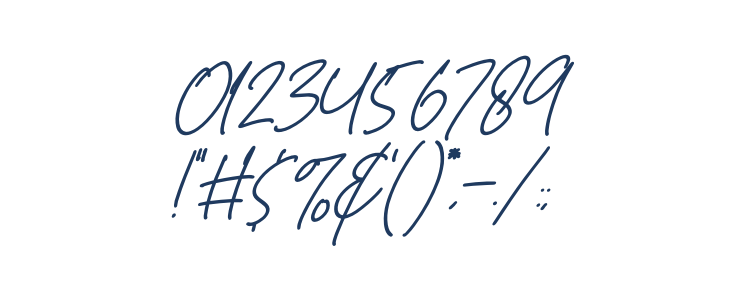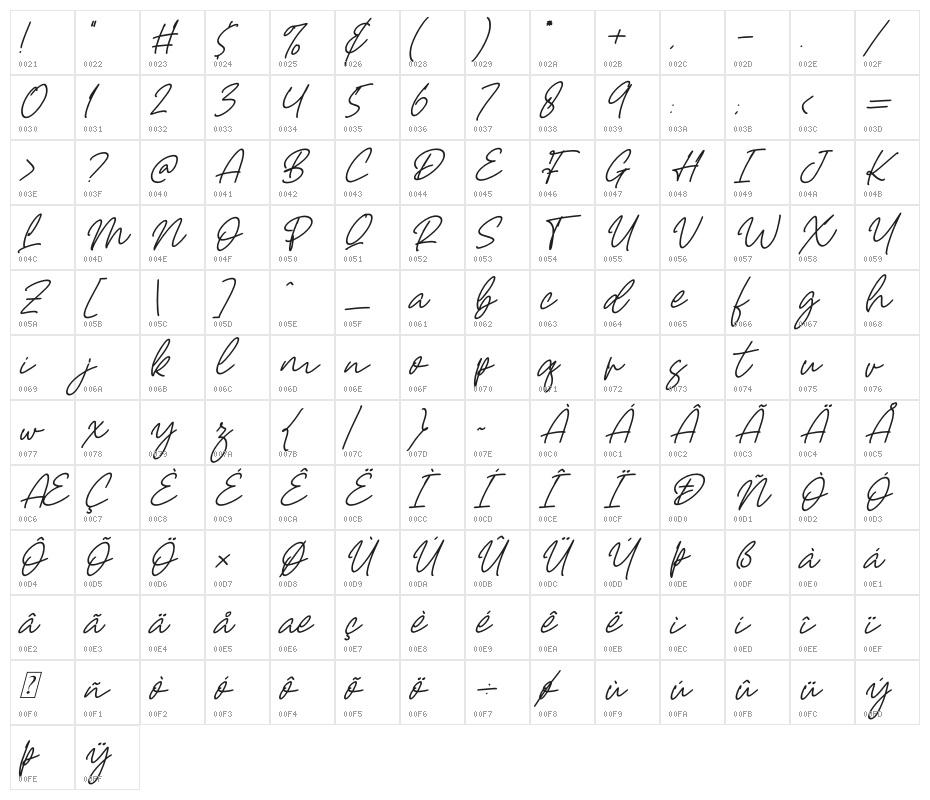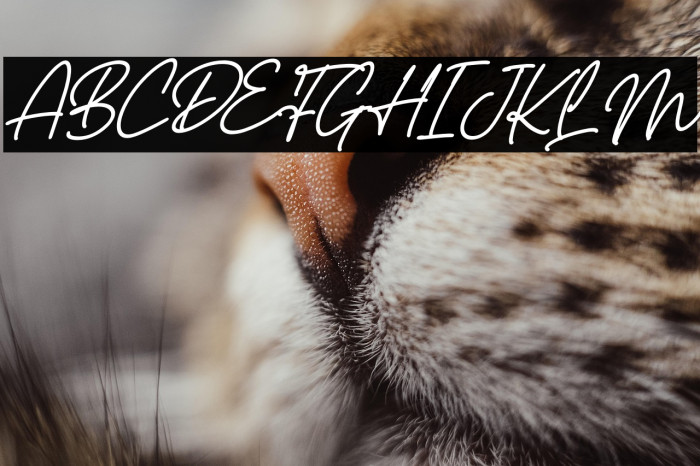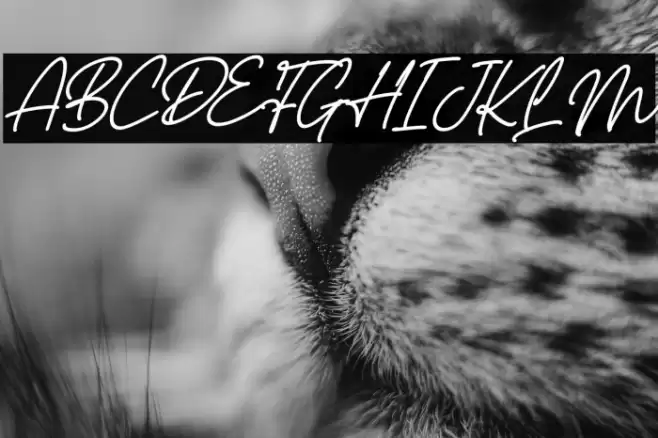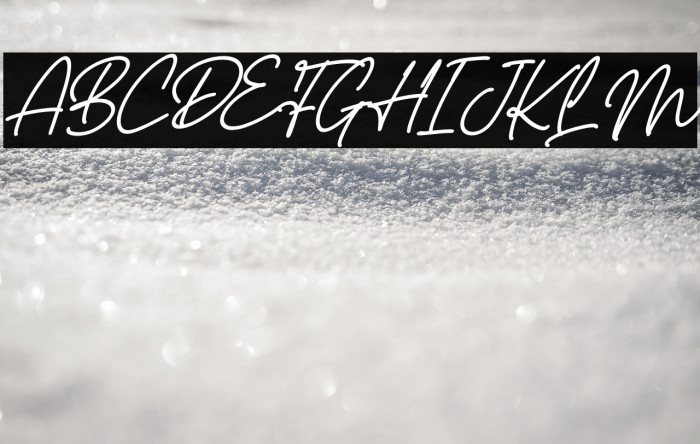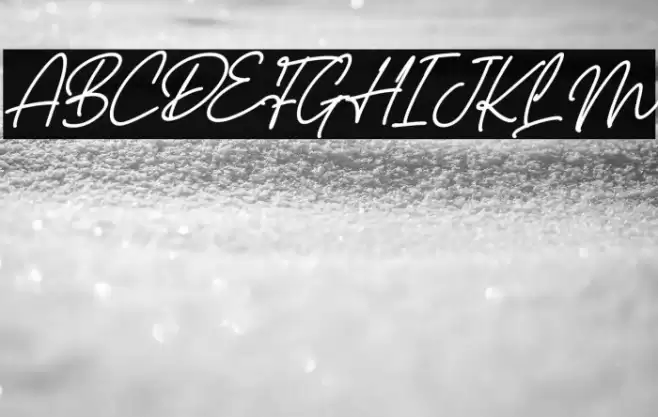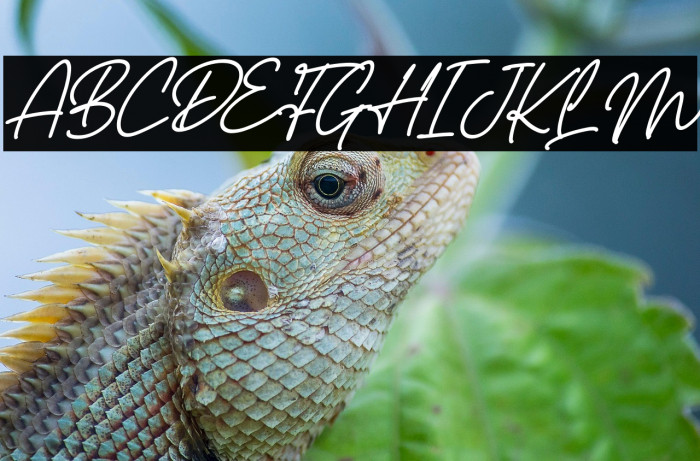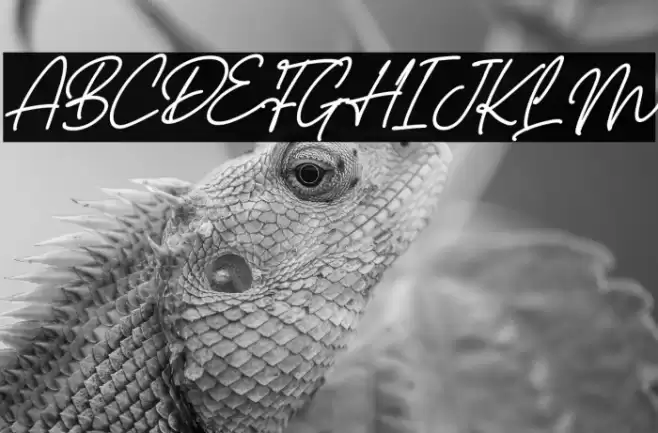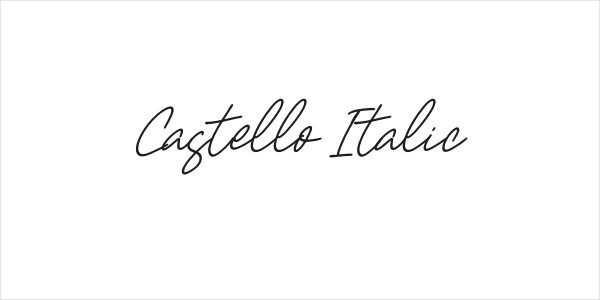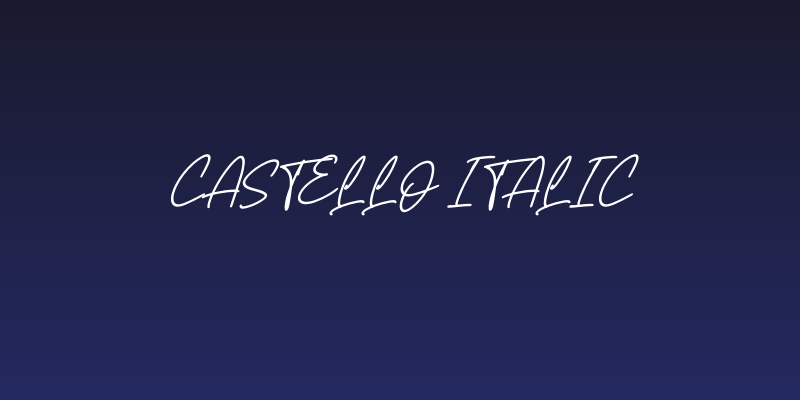
Castello Italic Font
Castello Italic Description
This font exudes a sense of elegance and fluidity, characterized by its cursive, handwritten style. The letters are connected, creating a seamless flow that mimics natural handwriting. The strokes are smooth and consistent, with a slight slant that enhances its italic nature. The uppercase letters maintain a sophisticated presence, while the lowercase letters are more relaxed and approachable. Numbers and special characters are crafted with the same attention to detail, ensuring uniformity across all elements. This font is ideal for projects that require a personal touch or a classic, refined aesthetic.
| Use Case | Logos, Invitations, Personal Correspondence |
| Proposed Projects | Ideal for wedding invitations, personal letters, branding for luxury products, and elegant event signage. |